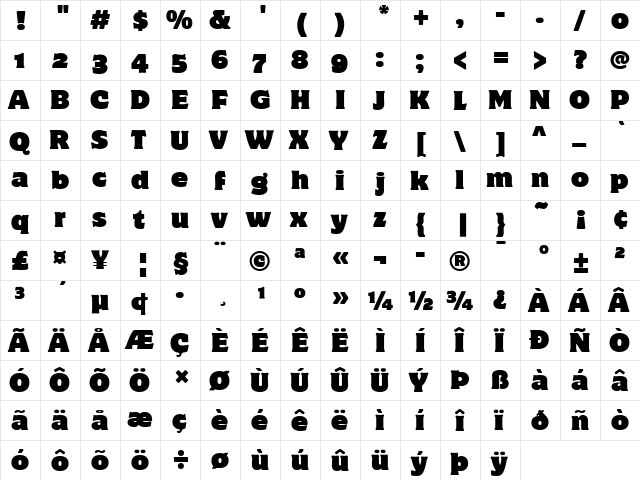
Motter Corpus ITC OS Regular
Design Context for Motter Corpus ITC OS Typeface
Motter Corpus ITC OS takes a measured approach to typography — its balanced proportions and neutral character make it a reliable workhorse for both digital and print work.